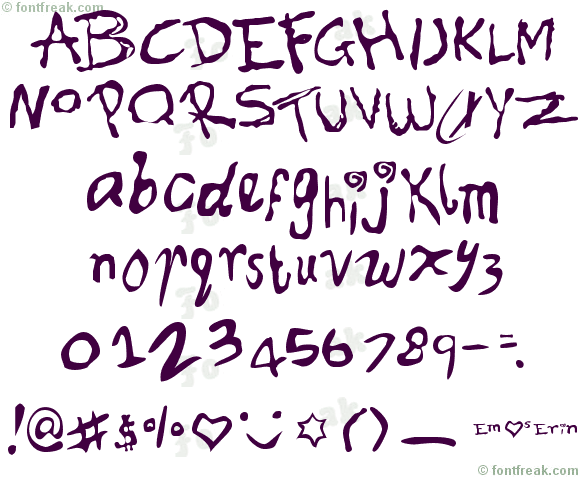
Font for Erin
About Font for Erin
"Font for Erin" by Utopiafonts is a unique handwritten font that captures a playful and organic aesthetic. Released in 1998, this font showcases a whimsical style characterized by irregular stroke weights and a casual, free-flowing design. The characters exhibit a charming contrast, with varying thicknesses that contribute to its hand-drawn feel. The spacing is intentionally loose, allowing each letter to breathe and stand out, giving it a lively and approachable appearance.
This font is particularly versatile, making it ideal for a variety of creative projects. It shines in use cases such as wedding invitations, where its heartfelt style can convey warmth and intimacy. It also works beautifully for children's book covers, adding a sense of fun and adventure to the pages. Graphic designers may find "Font for Erin" perfect for crafting eye-catching posters or social media graphics, where a personal touch is essential. Additionally, small business owners can utilize this font for branding materials, such as logos or restaurant menus, to evoke a friendly and inviting atmosphere.
Targeting graphic designers, small business owners, and content creators, "Font for Erin" provides a refreshing alternative to more traditional typefaces. Its unique visual characteristics invite creativity and originality, making it a fantastic choice for those looking to express individuality in their designs.
Ultimately, "Font for Erin" stands out for its charmingly informal look that resonates with audiences seeking a personal connection. With the availability of a font for Erin font free download, designers can easily incorporate this delightful typeface into their projects, enhancing their artistic expressions while maintaining a sense of authenticity. Whether for personal or professional use, this font adds a distinctive flair that is sure to leave a lasting impression.